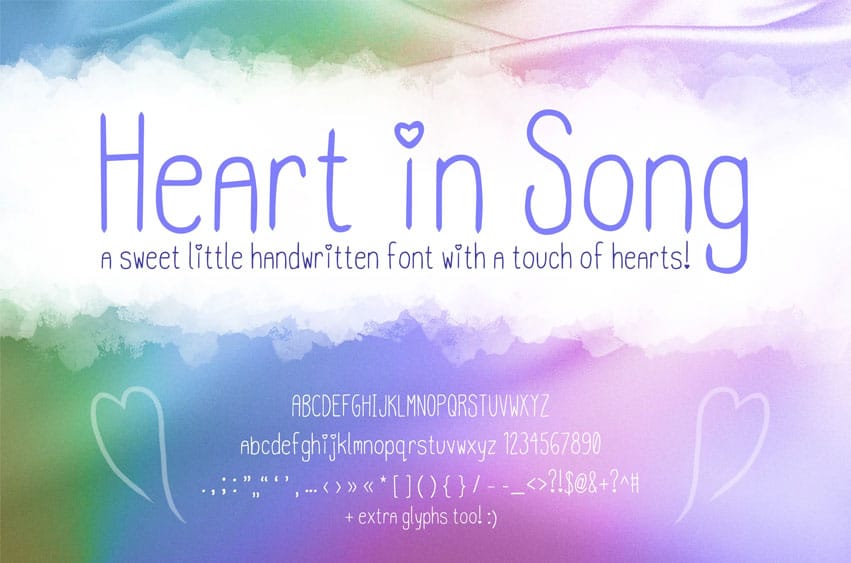
Heart in Song Font is a cute handwriting font! There’s little hearts sprinkled in there for some extra cute handwritten touches.
It could work great as a Valentine’s Day font, for invitations, gift tags, and more!